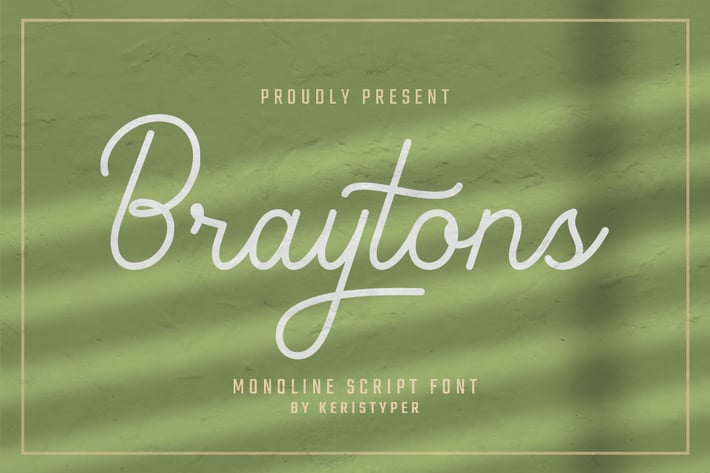
Braytons Monoline Font
Braytons Script is a flowing monoline handwritten font, described by an elegant touch, perfect for your favorite projects. Fall in love with its incredibly distinct and timeless style and use it to create spectacular designs!